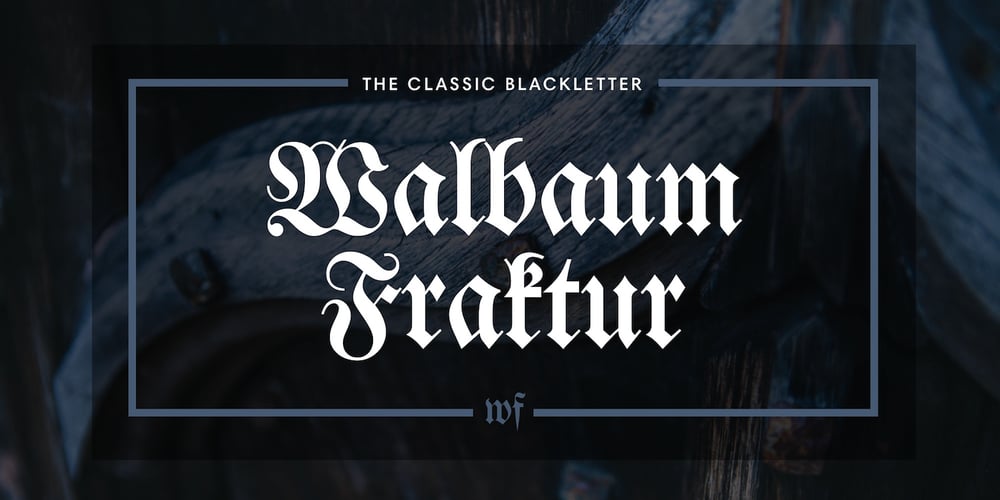
Walbaum Fraktur Font Family was designed by Justus Erich Walbaum and published by Linotype. Walbaum Fraktur contains 1 styles and family package options. Justus Erich Walbaum was a German punchcutter who worked in Weimar around 1800. He produced both serif and blackletter typefaces. Walbaum Fraktur” is based on his famous blackletter-style type (called Fraktur in German). Walbaum Fraktur is an excellent font for anything old-fashioned, Northern European, or typographically quirky.”